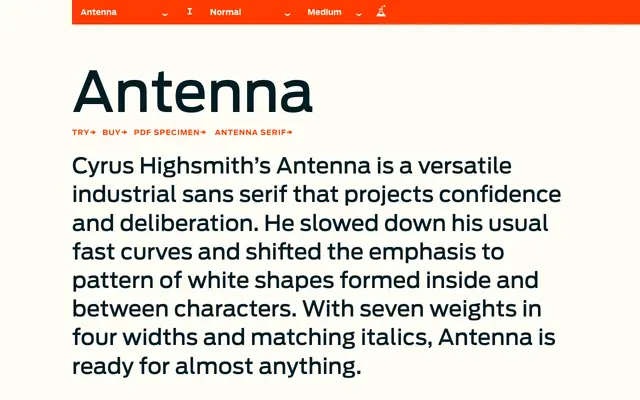
Antenna
Occupant Fonts · Cyrus Highsmith · 2006
A 56-style industrial sans by Cyrus Highsmith, designed around the negative space formed inside and between letters rather than the conventional focus on stroke curves.
Designed by Cyrus Highsmith in 2006, Antenna slows his characteristic fast curves and redirects attention to the rhythm of white counter shapes, producing a typeface that reads as deliberate and composed. Seven weights run across four widths, from regular to compressed, each with matching italics, giving the family broad coverage for editorial, signage and identity work. Stylistic alternates for both upper and lower case characters extend its typographic range further.
Highsmith describes Antenna as an industrial sans serif, with design emphasis placed on the pattern of white counter shapes rather than on the curves of the letterforms themselves, distinguishing it from humanist or geometric grotesques.